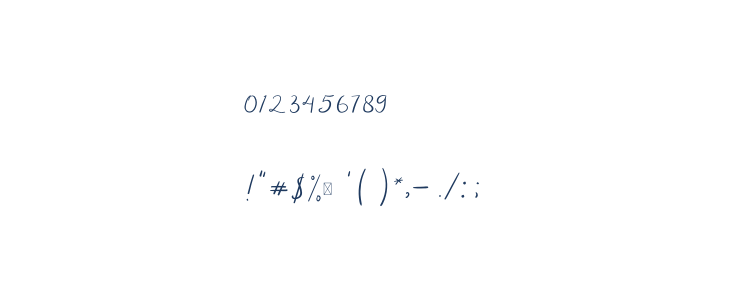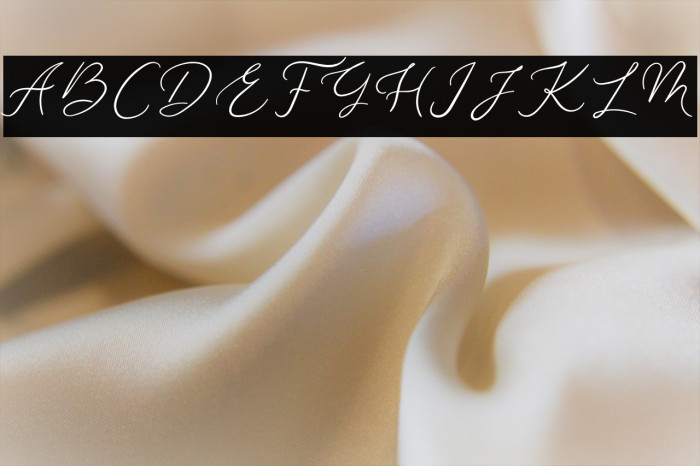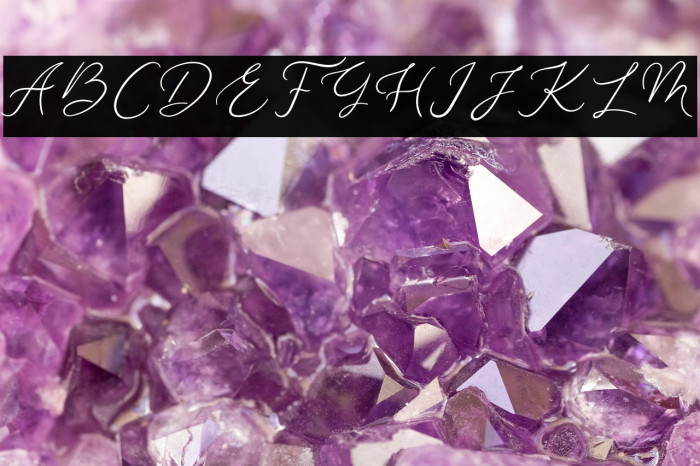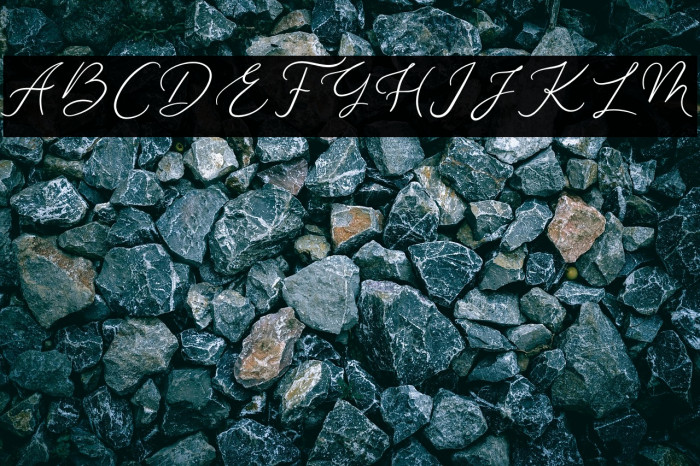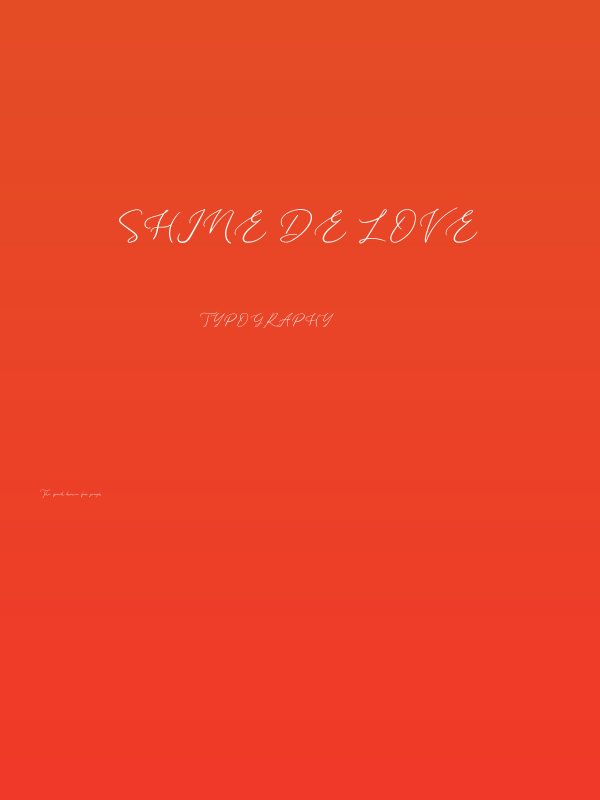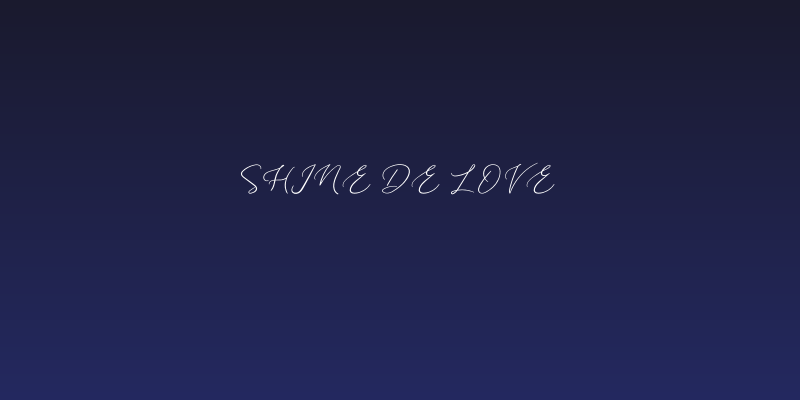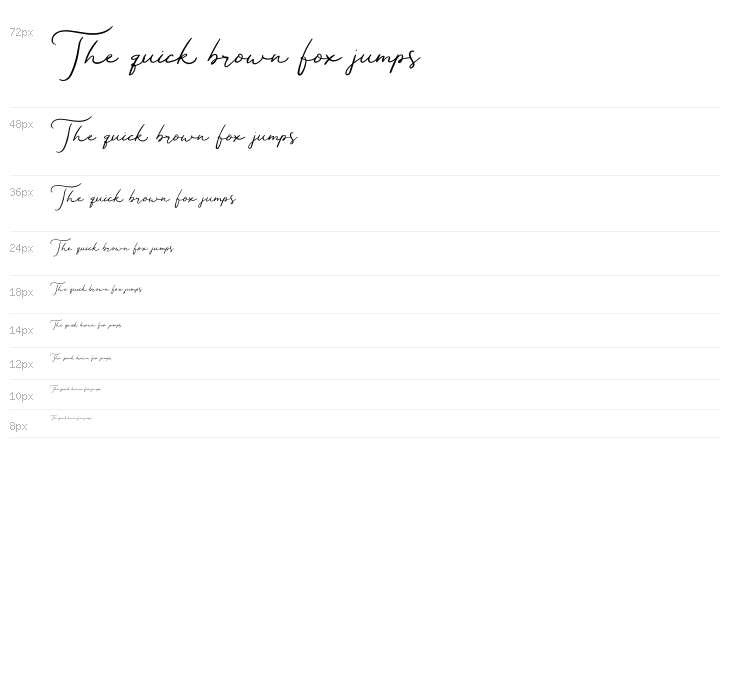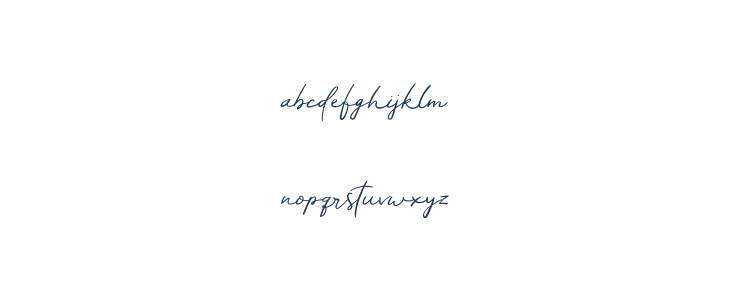
Shine de Love Font
Shine de Love Description
This elegant script font features fluid, graceful strokes that mimic the natural flow of handwriting. The uppercase letters are characterized by sweeping curves and delicate loops, giving a sense of sophistication and charm. The lowercase letters maintain a consistent style, with smooth connections between characters, enhancing readability while preserving the font's artistic flair. The numerals are designed with a similar fluidity, ensuring they blend seamlessly with the letters. Special characters are thoughtfully crafted to match the overall aesthetic, making this font versatile for various design needs.
| Use Case | Logos, Invitations, Personal stationery |
| Proposed Projects | Ideal for wedding invitations, elegant branding, personal stationery, and romantic-themed designs. |